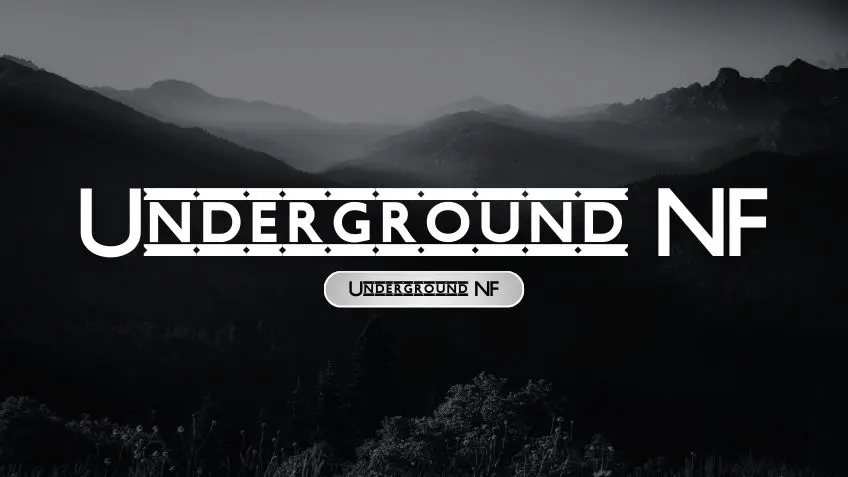
The font Underground NF Regular, designed by Nick Curtis, falls under the Sans Serif category & Underground NF font family. Its smooth, flowing letterforms make it a versatile choice for projects that require both elegance and readability. Underground NF is particularly well-suited for Web Design, Editorial Design, Event Posters and Branding and Logos. With its balance of simplicity and decorative appeal, this font brings a polished touch to both personal and professional designs.